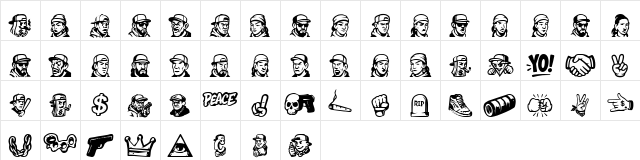
Gangsta Paradise Regular
Foundry: CAT.B
Designer: CAT.B
Design Context for Gangsta Paradise
Gangsta Paradise is a composed and adaptable typeface that performs quietly and consistently across a wide range of design contexts.